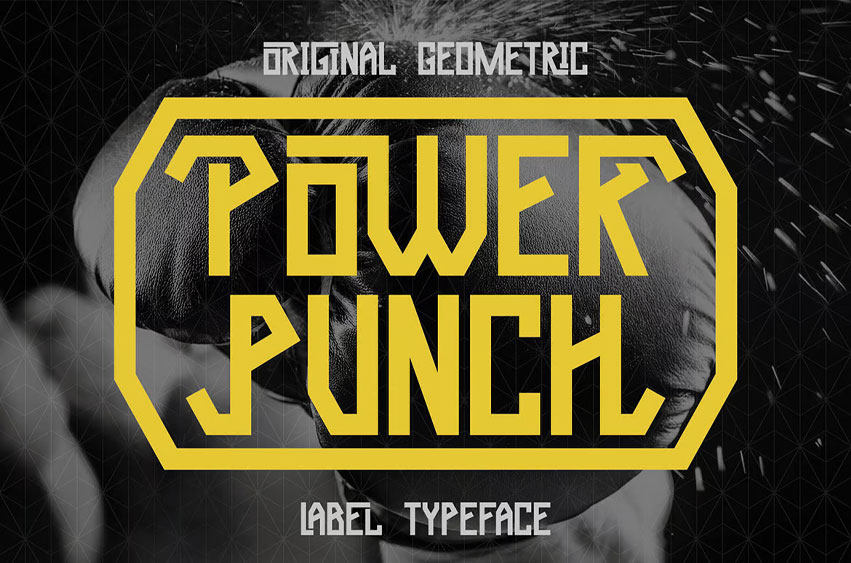
Power Punch Font
Power Punch Font Unique, creative, sharp, geometric, decorative, game & urban label sans serif font. Comes with multilingual support, alternates & ligatures + 2 font versions – great for your new logo, monogram, or branding project.
• 2 font versions – regular & aged
• Multilingual support, alternates & ligatures
• Great for urban or street-style branding projects